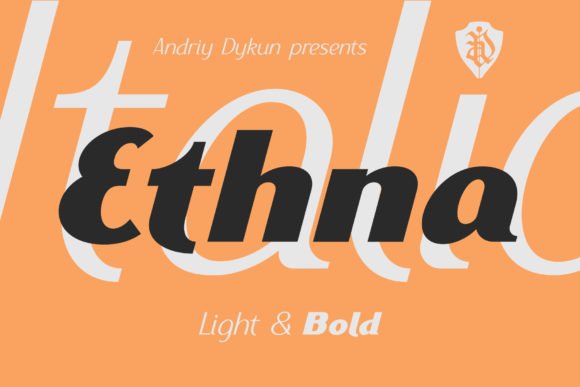
The Birth of a Modern Classic: Unveiling the Ethna Font
Have you ever been in the midst of a creative storm, where ideas are flowing and your imagination is running wild? That’s exactly where the magic happens. For designers, it’s a moment of pure bliss – the spark that ignites a new project, a fresh perspective, or a game-changing concept. And that’s exactly what the Ethna Font embodies – a perfect blend of modern and vintage aesthetics that will leave you breathless.
The Ethna Font is a versatile sans-serif family designed to make a statement. With two distinct weights – Bold Italic and Light Italic – this font is perfect for adding a touch of elegance to your designs. Whether you’re crafting standalone words or full text blocks, the Ethna Font is sure to captivate your audience. Its value lies in its adaptability, making it an essential tool for designers who crave creativity and versatility.
Ethna Font Key Features
- Font Family: Ethna is a modern sans-serif font family designed for digital use.
- Unique Characteristics: Ethna features a clean and minimalist design, with subtle rounded edges and a highly legible x-height.
Designer Review: Ethna Font
Overall, I’d say Ethna Font is a solid, yet unremarkable choice for any project. It’s not going to blow anyone away, but it gets the job done.
- Clean and simple aesthetic: Ethna Font has a classic, timeless feel to it. It’s easy on the eyes and won’t overwhelm your audience.
- Good legibility: The font is clear and readable, even at smaller sizes. This makes it perfect for body text or smaller headings.
- Wide language support: Ethna Font includes support for a wide range of languages, making it a great choice for international projects.
- Lack of personality: Ethna Font is just a bit too plain and generic. It’s hard to find any real character or charm in this font.
- Not ideal for bold statements: If you’re looking for a font that makes a bold statement, Ethna Font is probably not your best bet.
- No unique features: Ethna Font doesn’t have any particularly notable features that set it apart from other fonts.
As a designer, I’d recommend Ethna Font for projects where a simple, unobtrusive font is needed. However, if you’re looking for something with a bit more flair or personality, you might want to consider other options.
Tips for Getting the Most Out of Ethna Font
Ethna Font includes a comprehensive character set, including Latin, Cyrillic, and Greek alphabets, as well as punctuation and special characters. The font also includes support for ligatures, swashes, and other decorative elements.